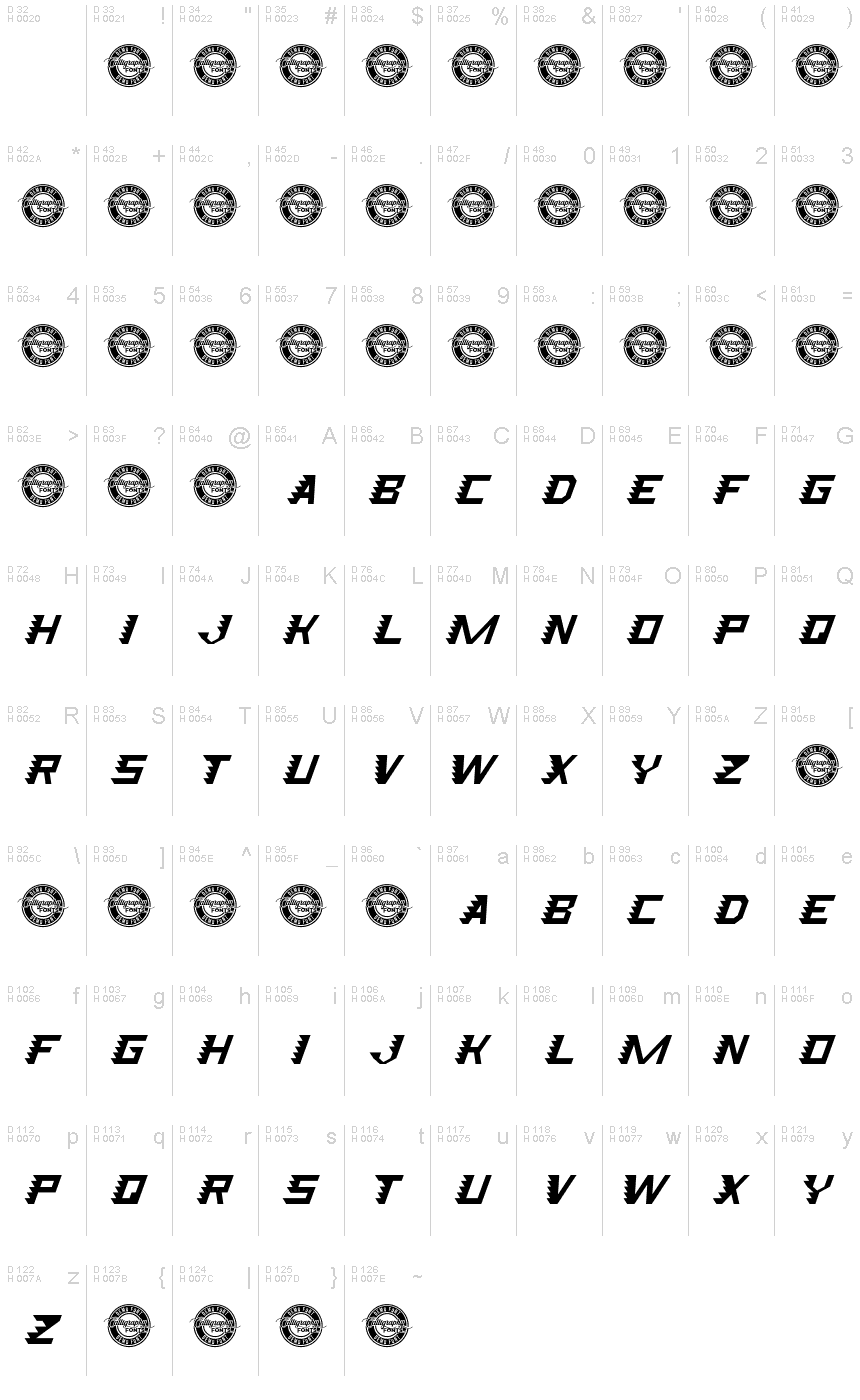
Speed Attack Demo Italic
Speed Attack Italic is the perfect font for any project that demands a bold, decorative touch. Designed by Calligraphy Fonts, this semi-bold typeface boasts an expanded width that commands attention and adds a unique flair to your designs. Whether you're creating eye-catching posters or designing striking logos, Speed Attack Italic is sure to stand out from the crowd. Its decorative style also makes it well-suited for wedding invitations or any project that requires an elegant touch. Add some speed and power to your designs with Speed Attack Italic!